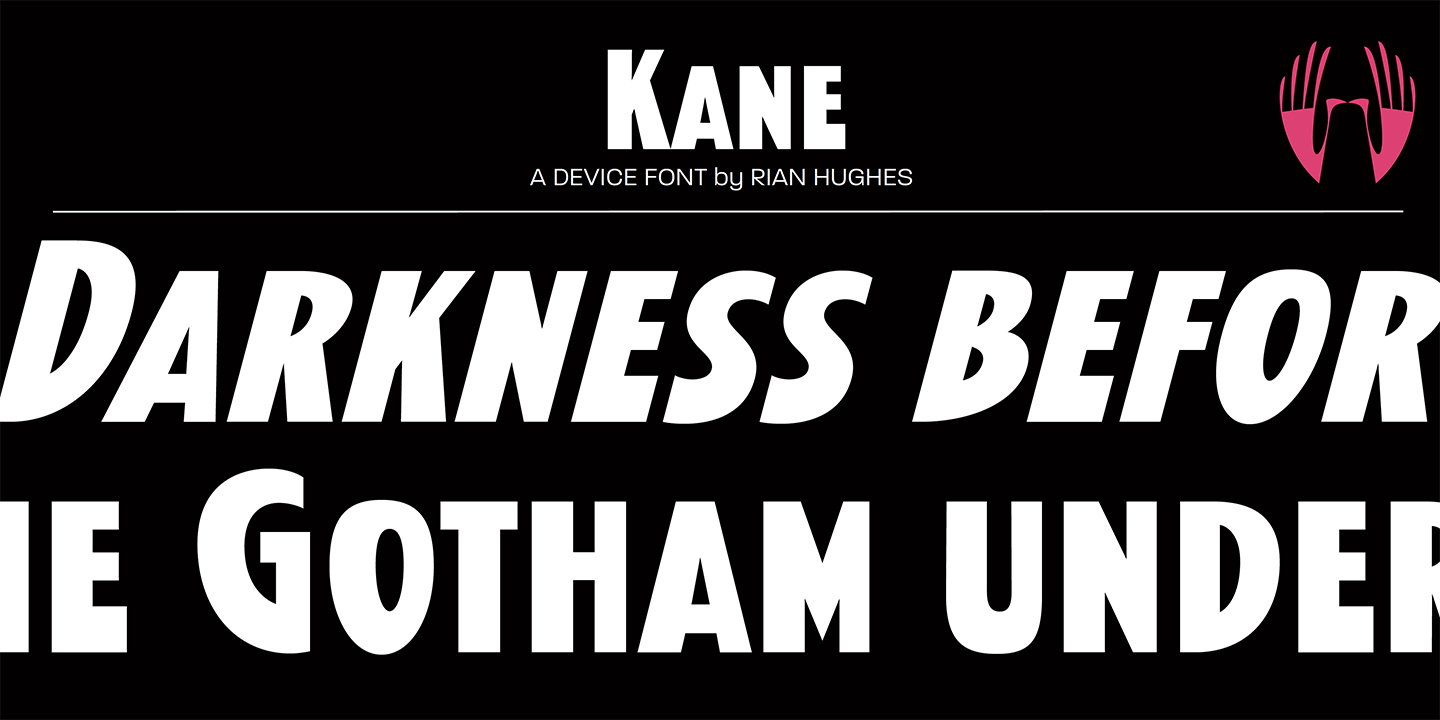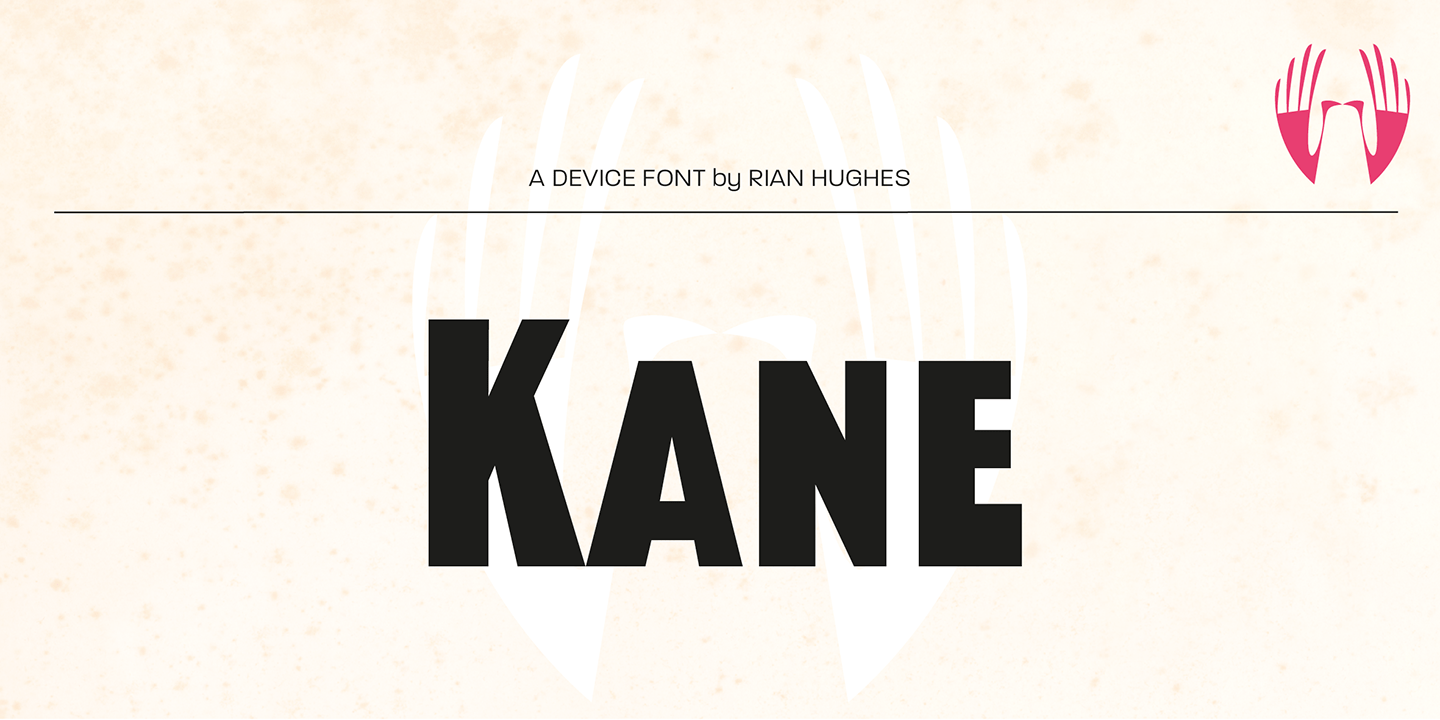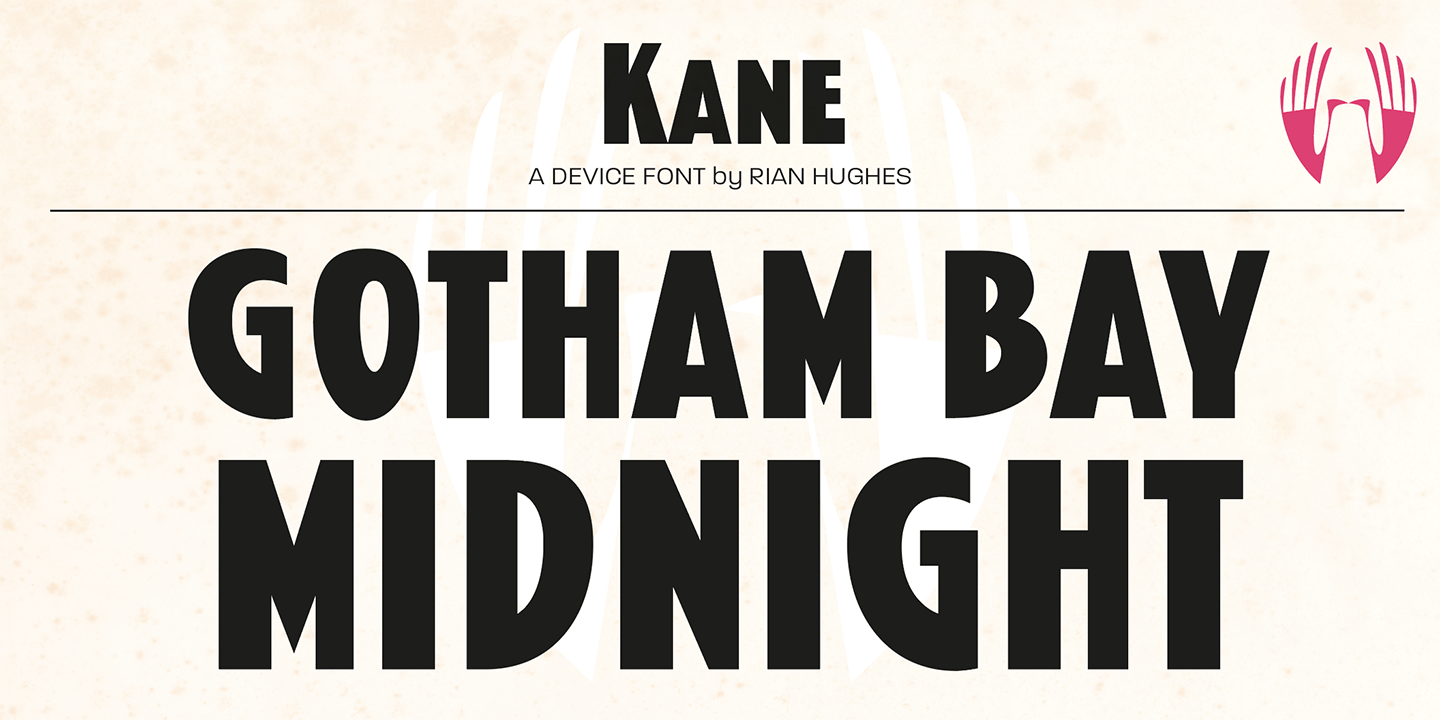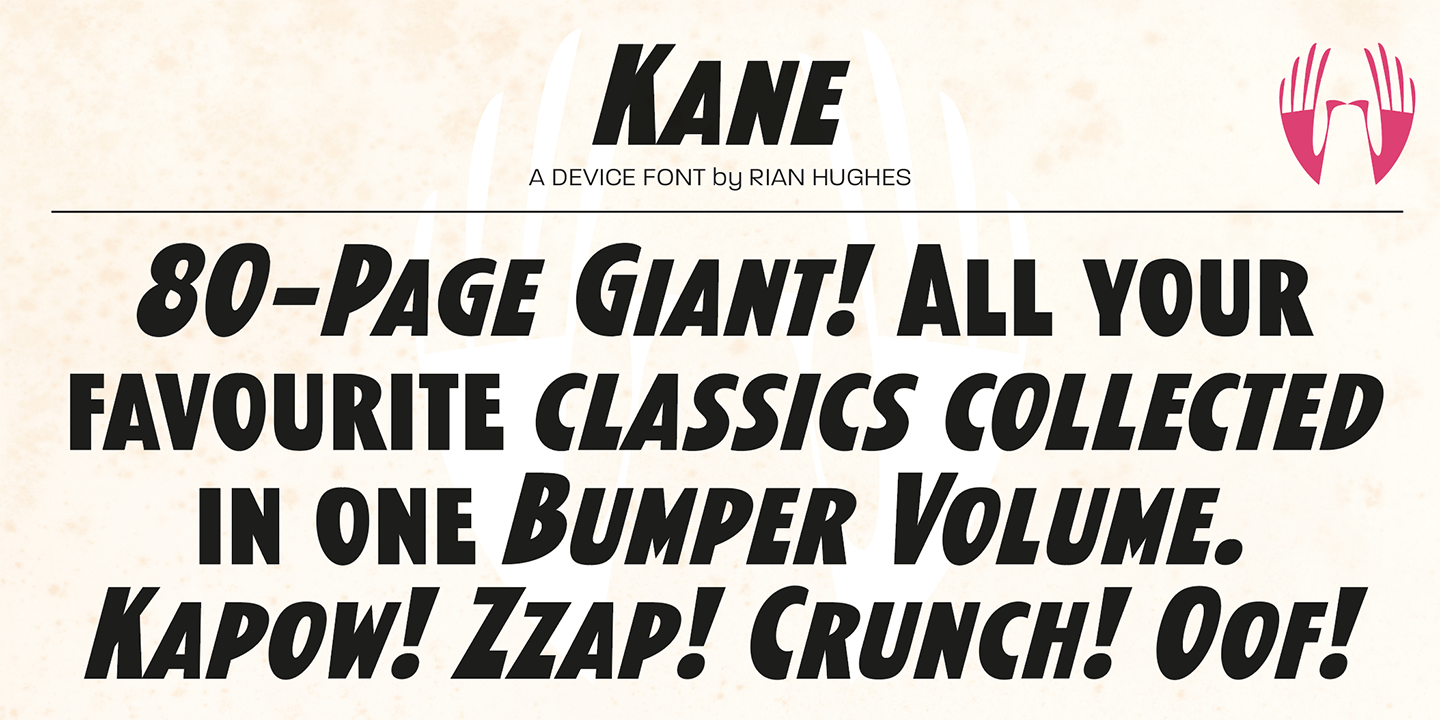
Kane
Font Family by Device
Based on the Batman logo, this font (and a medium weight which is unreleased) were designed especially for my upcoming Batman comic book.